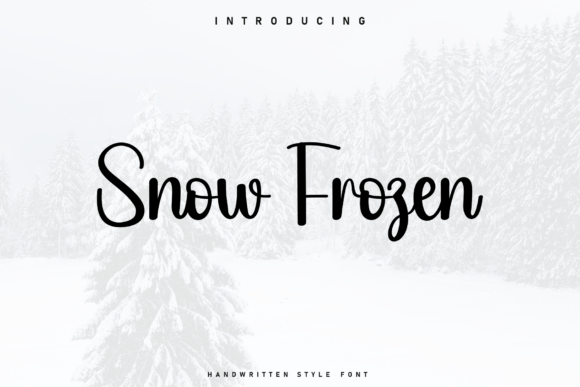
Snow Frozen Font: The Ultimate Choice for Luxurious and Elegant Designs
In the world of typography, fonts play a crucial role in defining the aesthetic and tone of a design. Among the numerous font styles available, the Snow Frozen font has gained significant attention for its unique, handwritten appearance and versatility. In this article, we’ll explore the Snow Frozen font, its characteristics, and its suitability for various design projects, from branding and logos to wedding supplies and marketing promotions.
What is Snow Frozen Font?
Snow Frozen is a beautiful, handwritten font that resembles being drawn with a marker. Its relaxed and sporty feel makes it an excellent choice for designers seeking a casual yet luxurious and elegant look. The font’s distinctive style is perfect for adding a personal touch to various design projects.
Design Applications of Snow Frozen Font
The Snow Frozen font is incredibly versatile and can be used in a wide range of design applications, including:
- Branding: Create a unique and memorable brand identity with Snow Frozen. Its elegant and casual feel makes it perfect for lifestyle, fashion, and beauty brands.
- Logos: Design a stunning logo that stands out from the crowd. Snow Frozen’s marker-drawn appearance gives logos a creative and artistic look.
- Wedding Supplies: Add a touch of elegance and romance to wedding invitations, stationery, and other supplies with Snow Frozen.
- Greeting Cards: Create beautiful and heartfelt greeting cards for special occasions, such as birthdays, anniversaries, and holidays.
- Fashion: Use Snow Frozen to create stylish and trendy fashion designs, including lookbooks, catalogs, and advertisements.
- Marketing Promotions: Elevate your marketing materials, such as brochures, flyers, and posters, with Snow Frozen’s luxurious and casual feel.
Benefits of Using Snow Frozen Font
The Snow Frozen font offers several benefits that make it an attractive choice for designers:
- Unique and Creative: Snow Frozen’s handwritten appearance sets it apart from traditional fonts, adding a creative touch to designs.
- Versatile: The font’s versatility makes it suitable for various design applications, from branding and logos to wedding supplies and marketing promotions.
- Elegant and Casual: Snow Frozen’s relaxed and sporty feel makes it perfect for designs that require a luxurious and elegant look without being too formal.
- Easy to Read: The font’s clear and legible design ensures that it remains easy to read, even in smaller sizes.
Tips and Tricks for Using Snow Frozen Font
To get the most out of Snow Frozen, consider the following tips and tricks:
- Pair with Other Fonts: Combine Snow Frozen with other fonts to create a unique and visually appealing typography.
- Experiment with Colors: Try different colors and color combinations to find the perfect match for your design.
- Pay Attention to Spacing: Ensure that the font has sufficient spacing to maintain readability and visual appeal.
- Use it for Headings and Titles: Snow Frozen is perfect for headings and titles, adding a creative and artistic touch to designs.
Best Practices for Using Snow Frozen Font
To ensure that Snow Frozen font looks its best, follow these best practices:
- Use High-Quality Images: Use high-quality images and graphics to complement the font and enhance the overall design.
- Keep it Simple: Avoid clutter and keep the design simple to ensure that the font remains the focal point.
- Consider the Audience: Choose a design that resonates with the target audience and aligns with the brand’s message.
- Test and Iterate: Test the design and iterate as needed to ensure that it meets the desired outcome.
In conclusion, Snow Frozen font is a versatile and elegant font that can elevate a wide range of design projects. Its unique, handwritten appearance and relaxed, sporty feel make it perfect for branding, logos, wedding supplies, greeting cards, fashion, and marketing promotions. By following the tips, tricks, and best practices outlined in this article, designers can unlock the full potential of Snow Frozen and create stunning designs that leave a lasting impression.